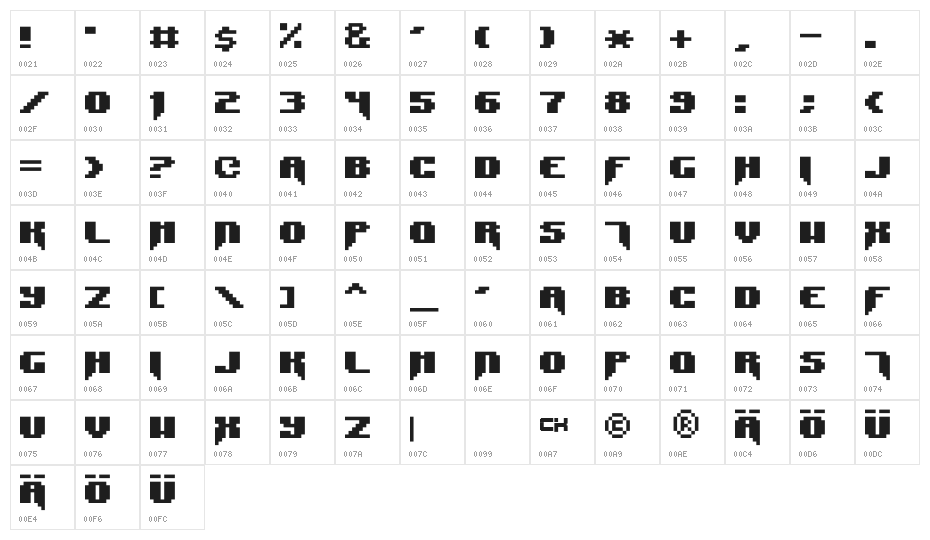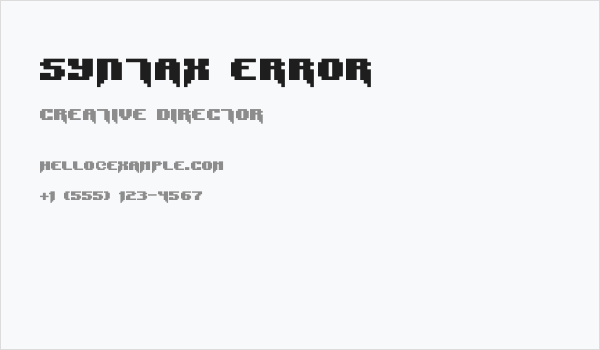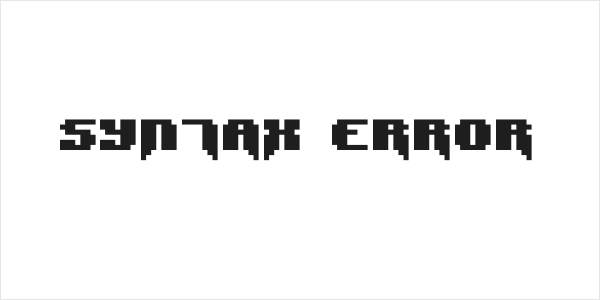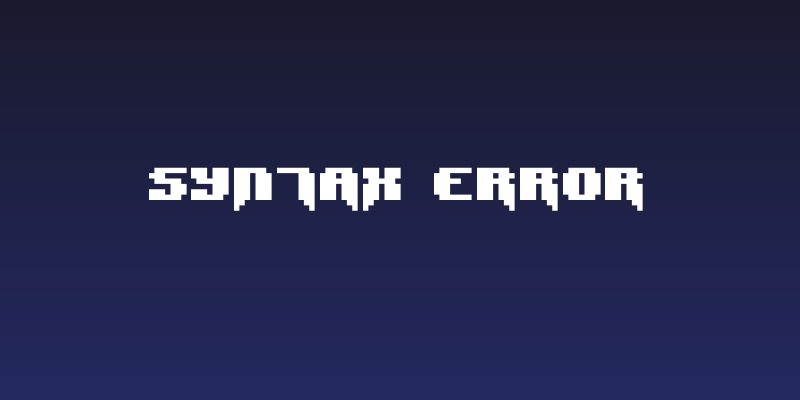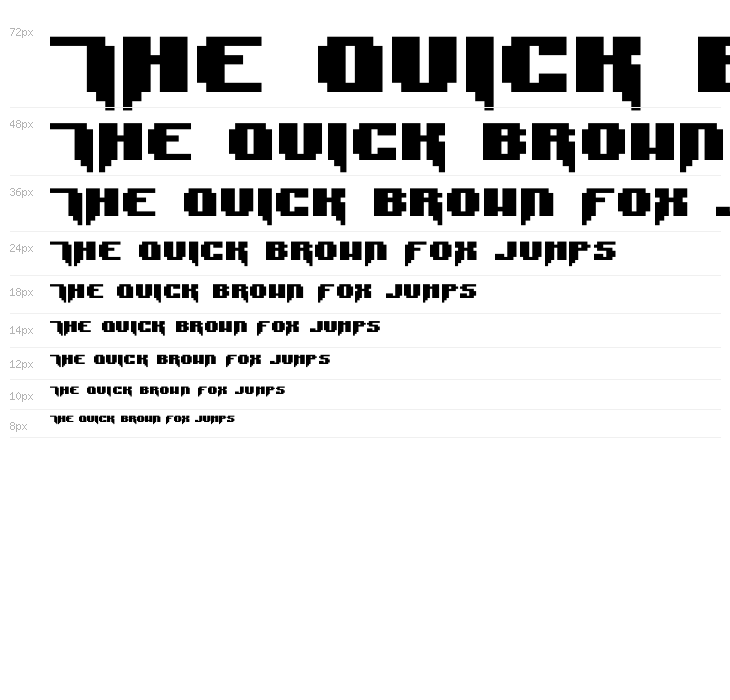
Syntax Error Font
Syntax Error Description
This font features a bold, pixelated style reminiscent of early digital or video game aesthetics. The characters are constructed with sharp, angular edges, giving it a blocky, geometric appearance. The uppercase and lowercase letters maintain a consistent height, contributing to a uniform look. The numerals and special characters follow the same design principles, ensuring cohesion across all glyphs. This font's distinct style makes it stand out, ideal for projects that require a retro or tech-inspired theme.
| Overall Style | Retro, Digital |
| Proposed Projects | Ideal for video game design, retro-themed posters, digital art, and tech-related branding. |